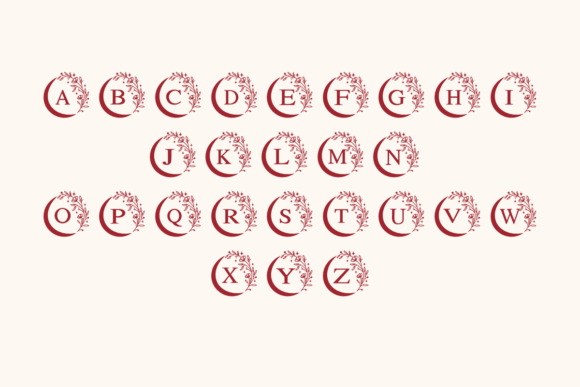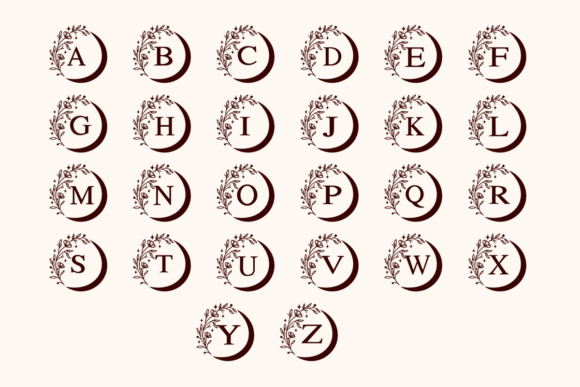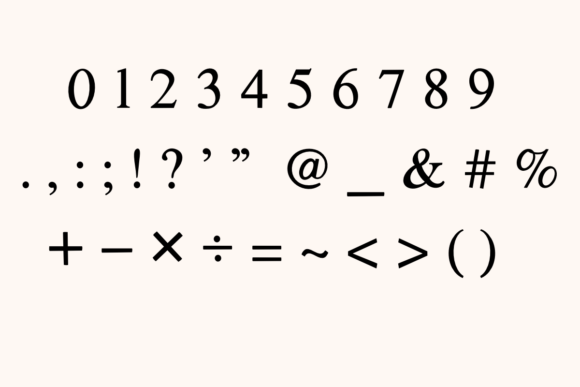
Introduction to Moon Flower Magic Font
Moon Flower Magic is a delicate and elegant decorative font.
Add it to your creative projects and you will love the results .
Key Features of Moon Flower Magic Font
Why Choose Moon Flower Magic Font?